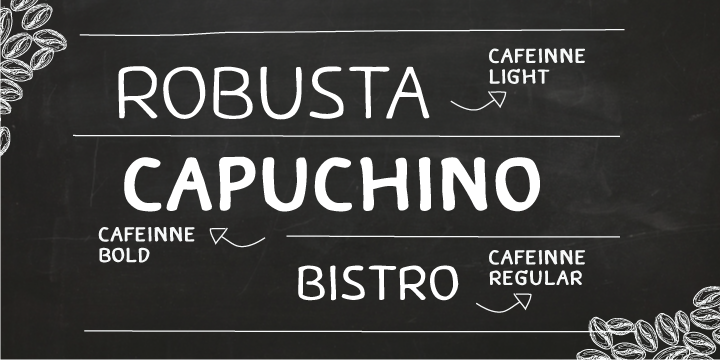
Caffeine is a typeface created by Chatnarong Jingsuphatada and published by Typesketchbook in 2012.
Caffeine font details
Foundry: Typesketchbook
Caffeine is a typeface created by Chatnarong Jingsuphatada and published by Typesketchbook in 2012.
Foundry: Typesketchbook